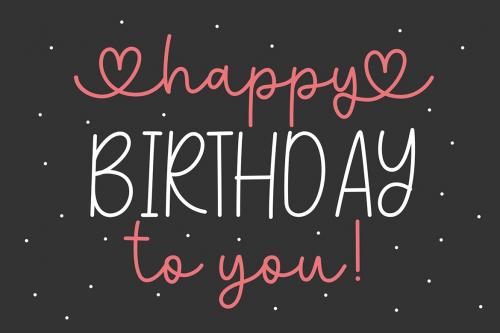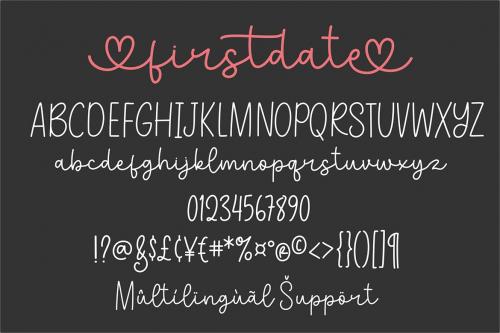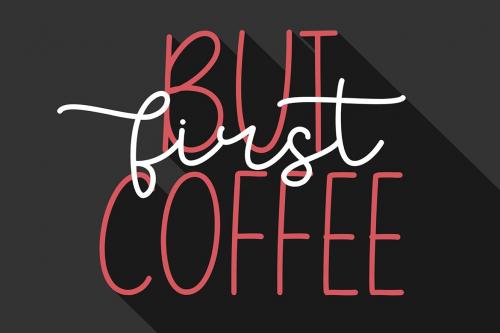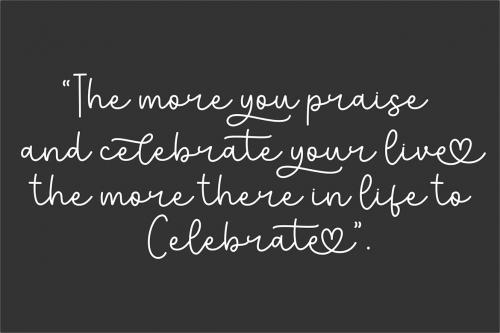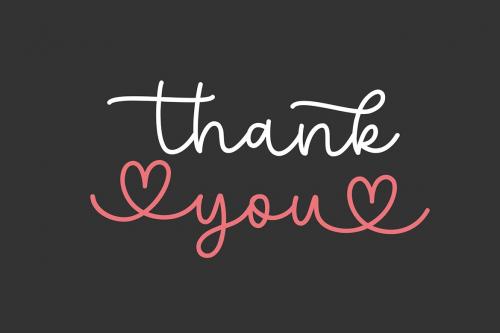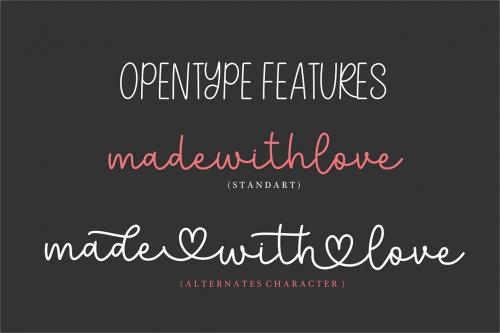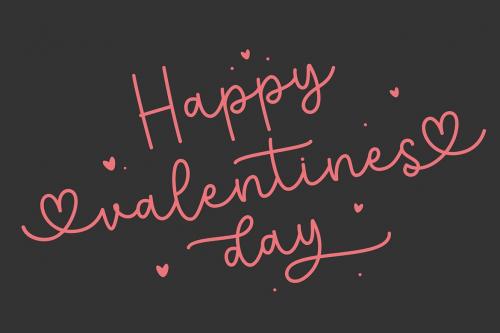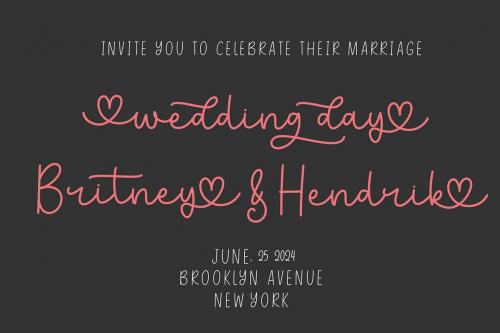
第一日期脚本 - 美丽字体脚本
Firstdate Script - Lovely Script Font
Firstdate is a quirky script font with lovely swash, perfect for crafting, branding, invitation, stationery, wedding designs, social media posts, advertisements, product packaging, product designs, label, Posters, photography, special events, or anything.
Font Features :
- Uppercase
- Lowercase
- numeric & Multilingual support
- Ligatures
- Stylistic Alternate with Ss01, Ss02, Ss03